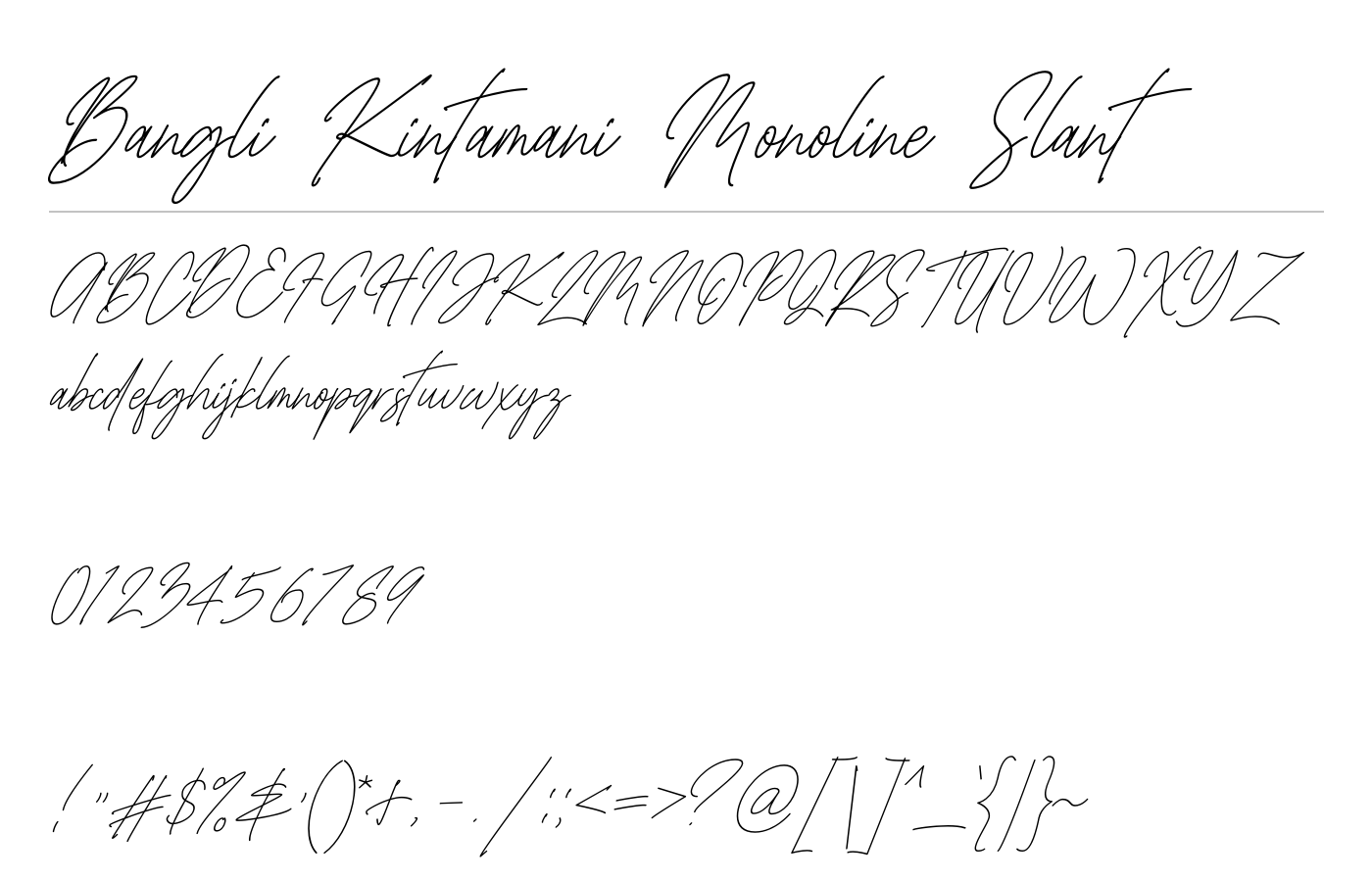
Bangli Kintamani Monoline Slant is a delicate, handwritten script font with a graceful slant and consistent thin strokes, giving it an elegant and airy feel. Its flowing letterforms and refined style make it perfect for invitations, branding, and projects that seek a personal, sophisticated touch. This font works well in designs that want to convey elegance and creativity with a modern handwritten charm.
Bangli Kintamani Monoline Slant Font
About Bangli Kintamani Monoline Slant Font